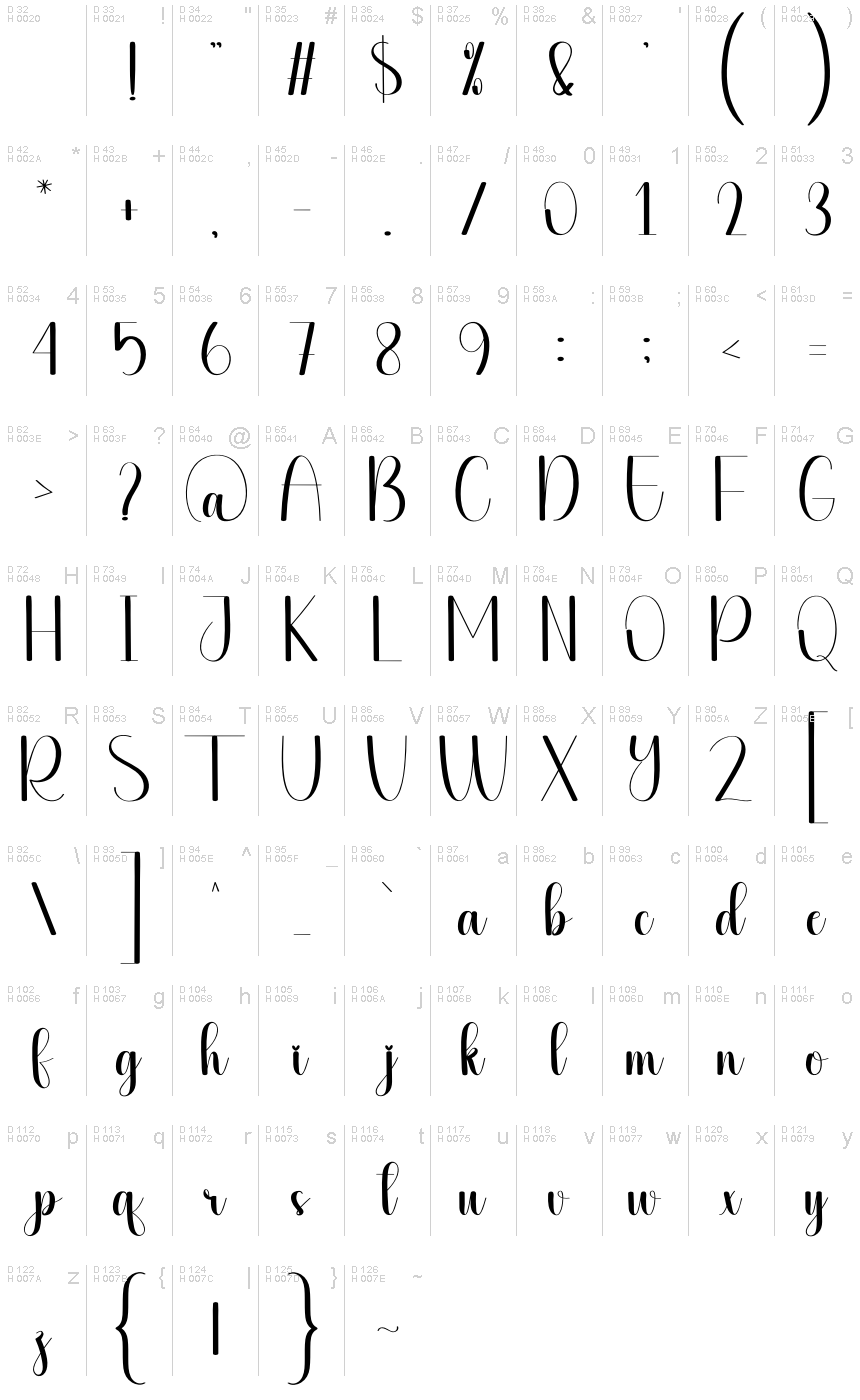
Hearty
Hearty font, designed by Scratchones, embodies the charm of handwritten typography with a delightful twist. Its playful curves and lively loops exude warmth and personality, making it an ideal choice for projects that seek to convey a friendly and inviting tone. The unique fluidity of each letter adds a touch of spontaneity, enhancing its aesthetic appeal.
With its expressive style, Hearty serves as a perfect accent in invitations, greeting cards, and branding materials where authenticity is key. Its character shines in both headings and short texts, effortlessly drawing attention while maintaining legibility. This font invites creativity, seamlessly blending into designs that aim to resonate emotionally with their audience. Whether it’s a cozy café menu or an intimate wedding invitation, Hearty brings imagination to life with every stroke.